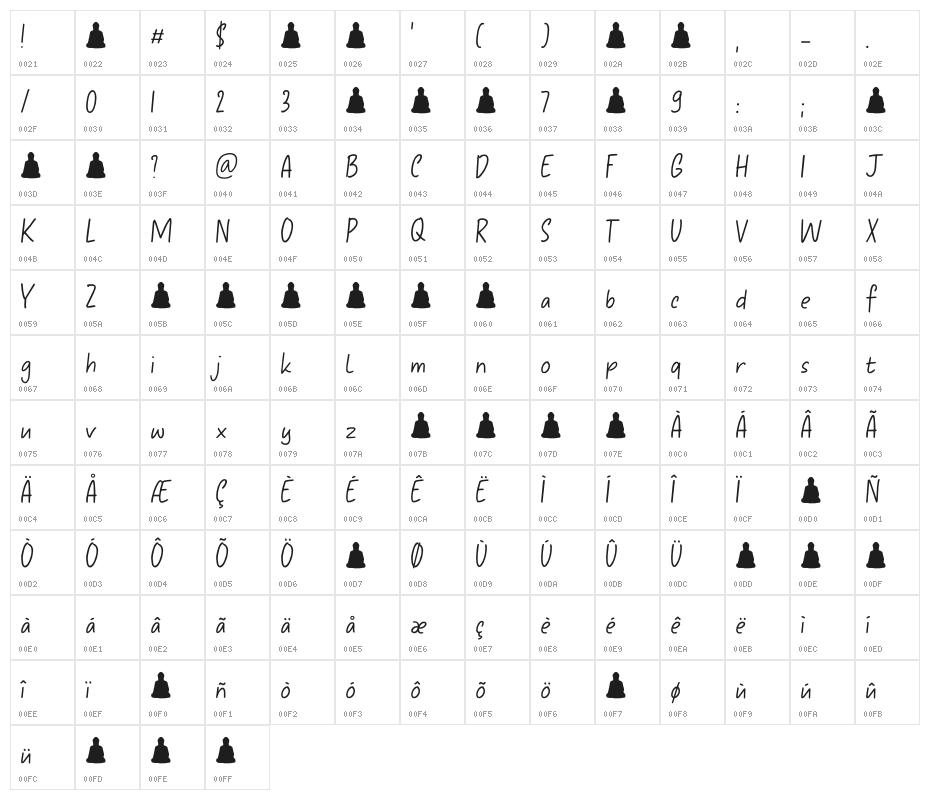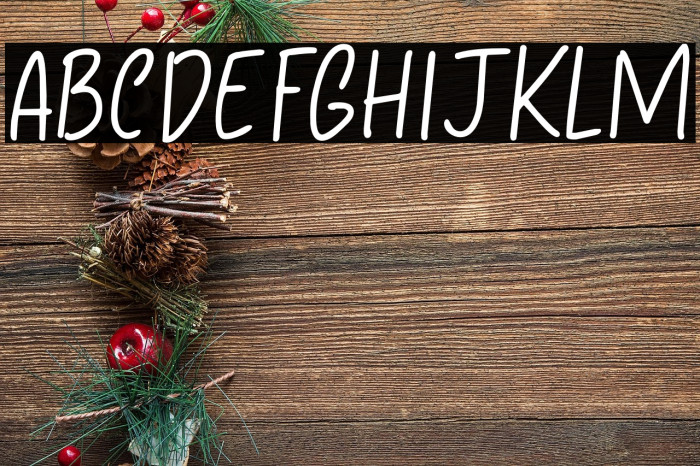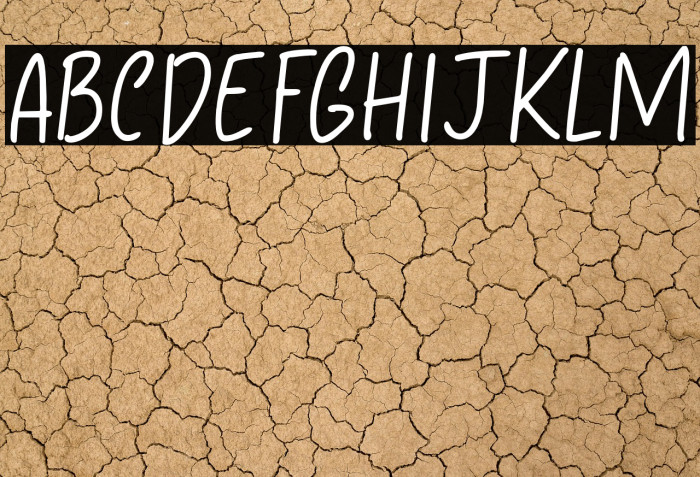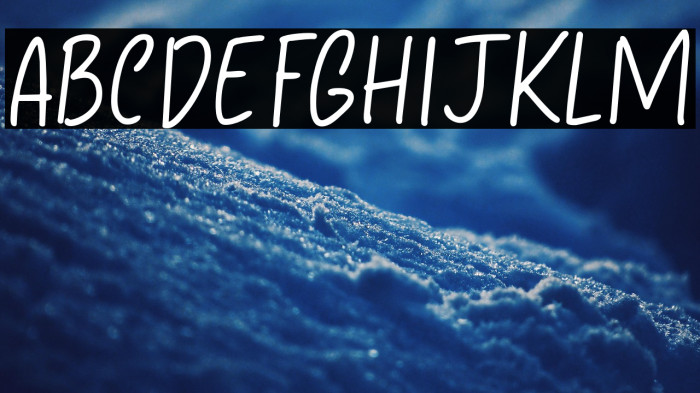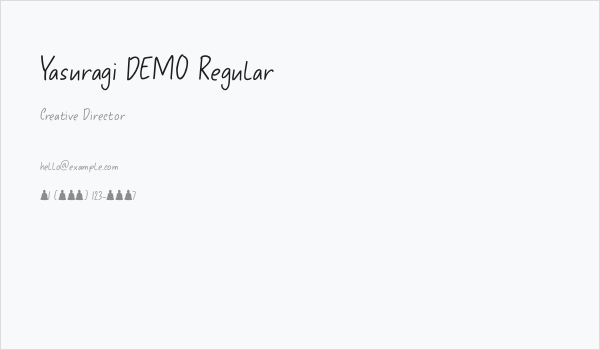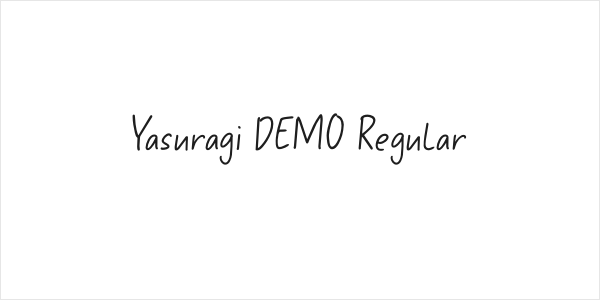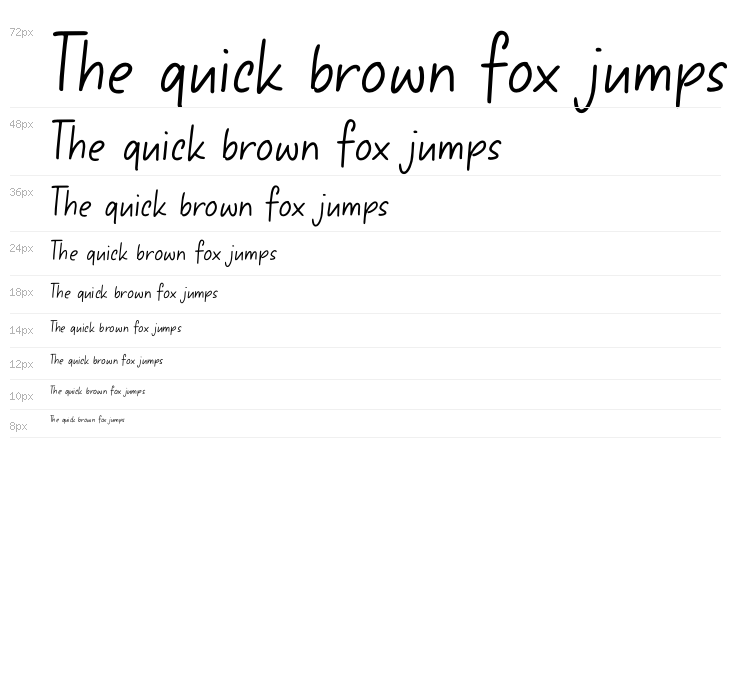
Yasuragi DEMO Regular Font
Yasuragi DEMO Regular Description
This font features a playful and casual handwritten style, characterized by its smooth, flowing lines and slightly irregular shapes that give it a personal touch. The uppercase letters are tall and slightly narrow, while the lowercase letters maintain a consistent height, adding to the font's approachable and friendly appearance. The numbers are clear and easy to read, with a similar handwritten quality. Special characters are included, maintaining the same playful aesthetic. This font is versatile and can be used in various design projects where a personal and informal touch is desired.
| Use Case | Headlines, Informal text, Personal projects |
| Proposed Projects | Ideal for greeting cards, personal blogs, casual branding, and children's books. |